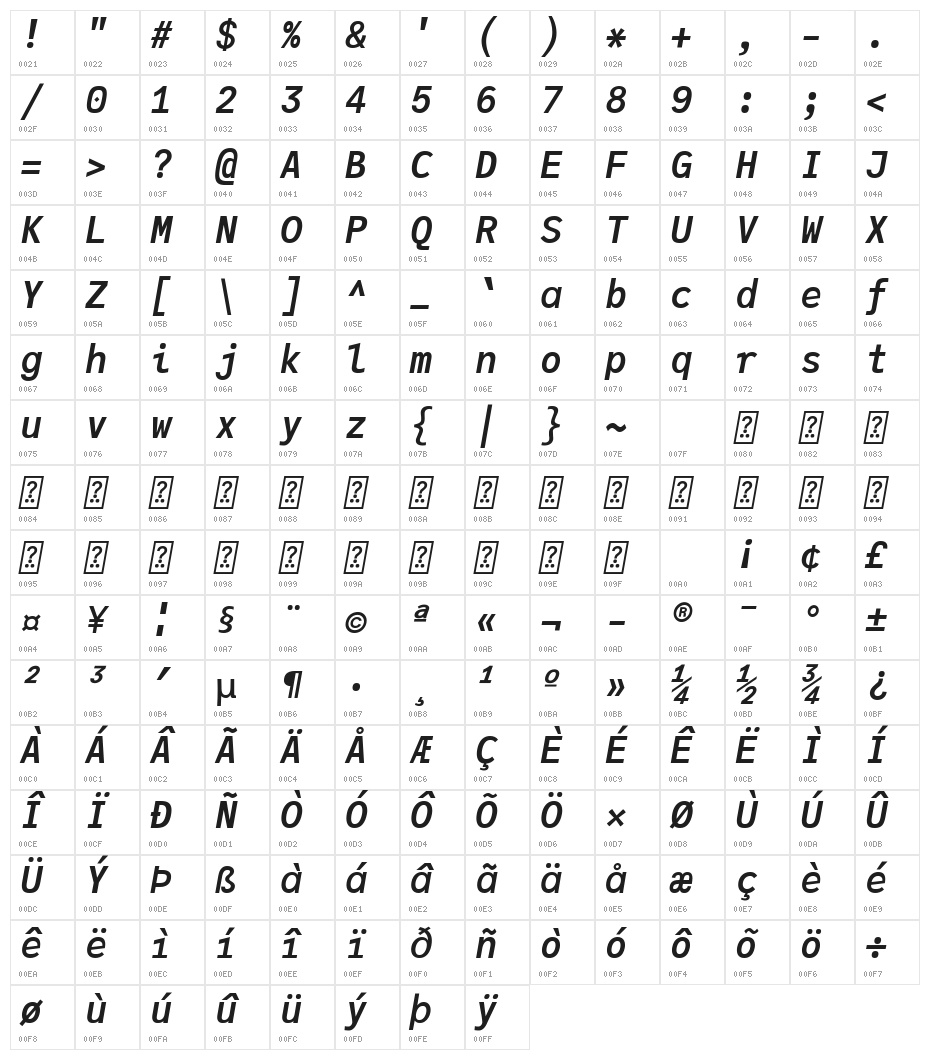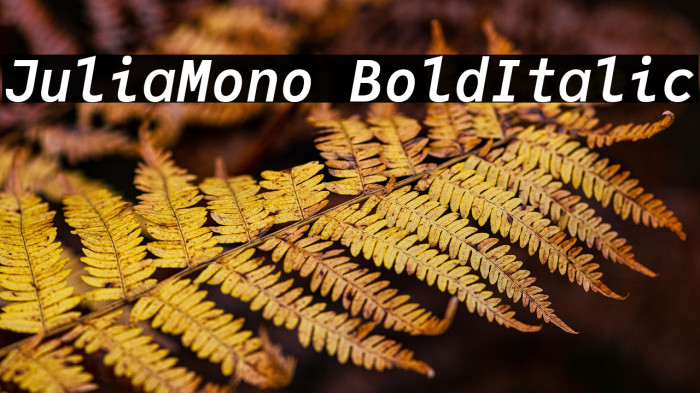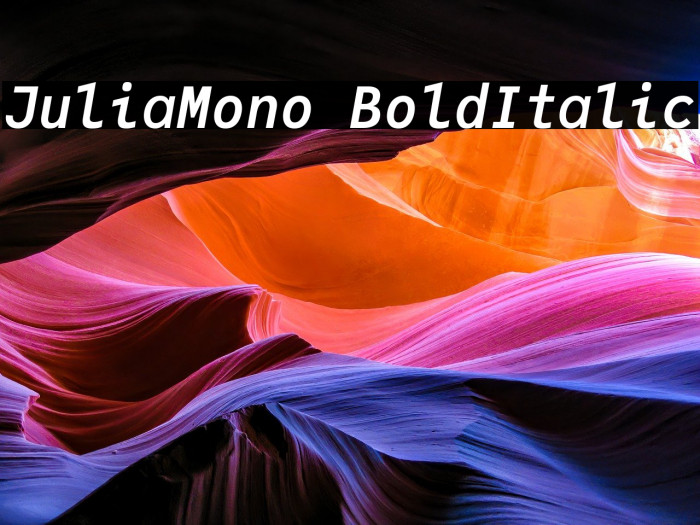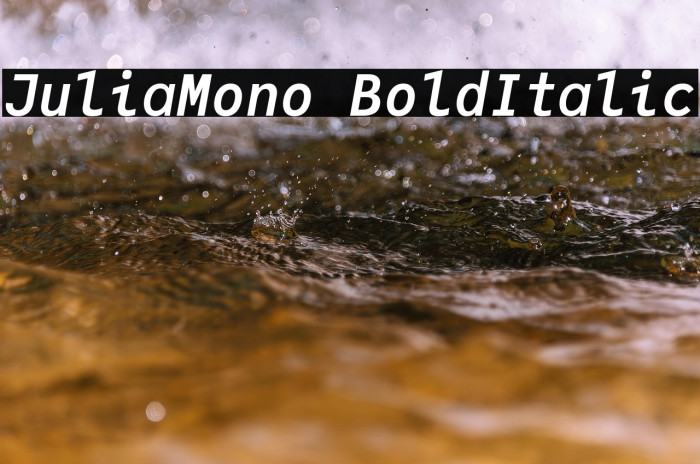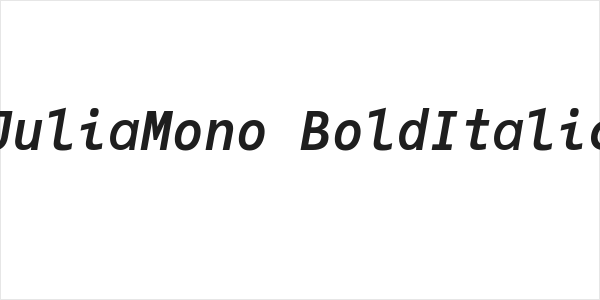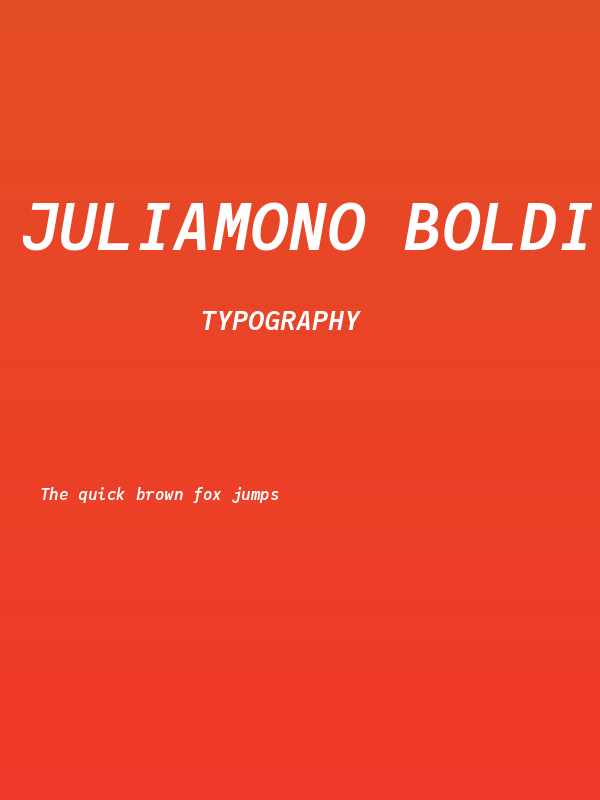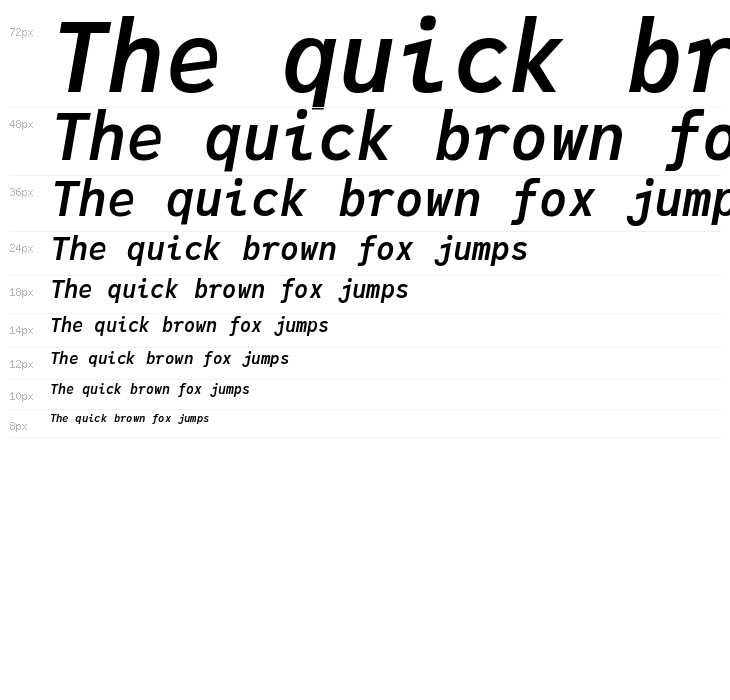
JuliaMono BoldItalic Font
JuliaMono BoldItalic Description
This typeface exhibits a modern monospaced design with a bold and italicized style. Each character maintains a consistent width, which is typical of monospaced fonts, making it ideal for coding and technical documentation. The italic slant adds a dynamic and contemporary feel, while the bold weight ensures strong readability. The characters are well-defined with clean lines and a slight curvature, providing a balanced and professional appearance. The numerals are distinct and clear, enhancing legibility in data-heavy contexts. Special characters are included, offering versatility for various applications.
| Use Case | Coding, Technical documentation, Data visualization |
| Proposed Projects | Ideal for coding environments, technical documentation, and data visualization projects. |